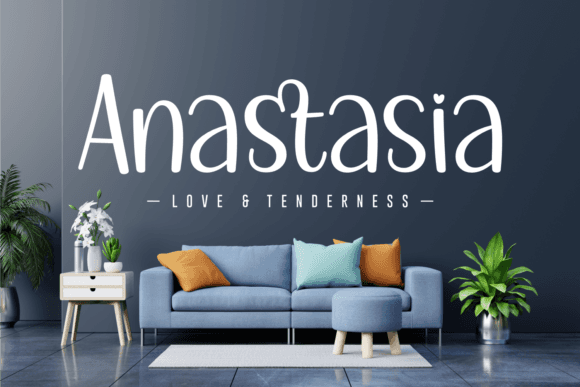
Anastasia Font for Headlines, Posters and Branding Projects
The Anastasia font is a modern handwritten script that blends sophistication with a personal touch. Its elegant curves and flowing letterforms make it perfect for upscale branding and stylish DIY projects. This font is especially well-suited for logos, packaging, wedding invites, and social media content where a human touch matters.
- Business logos and branding kits
- Wedding invitations and signage
- Social media quote graphics
- T-shirt and apparel designs
- Custom mugs and tumblers
- Elegant, flowing handwritten style
- Perfect for upscale branding and invitations